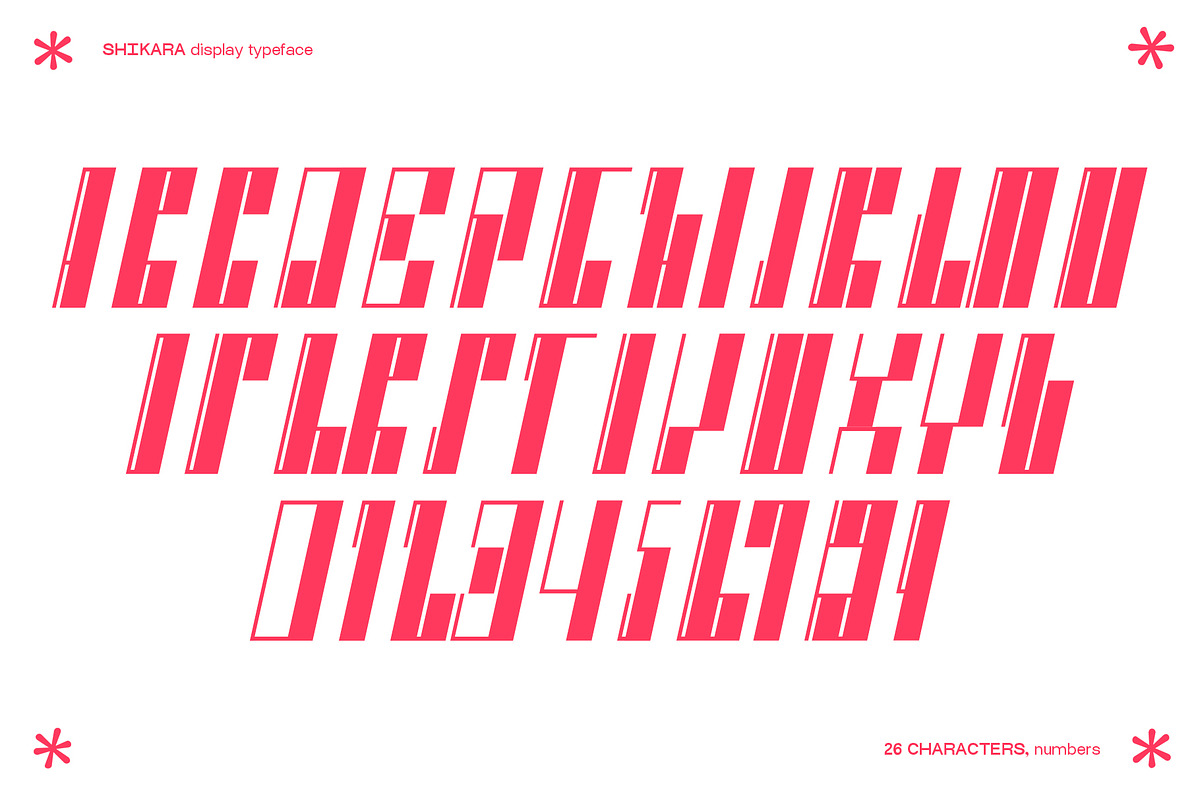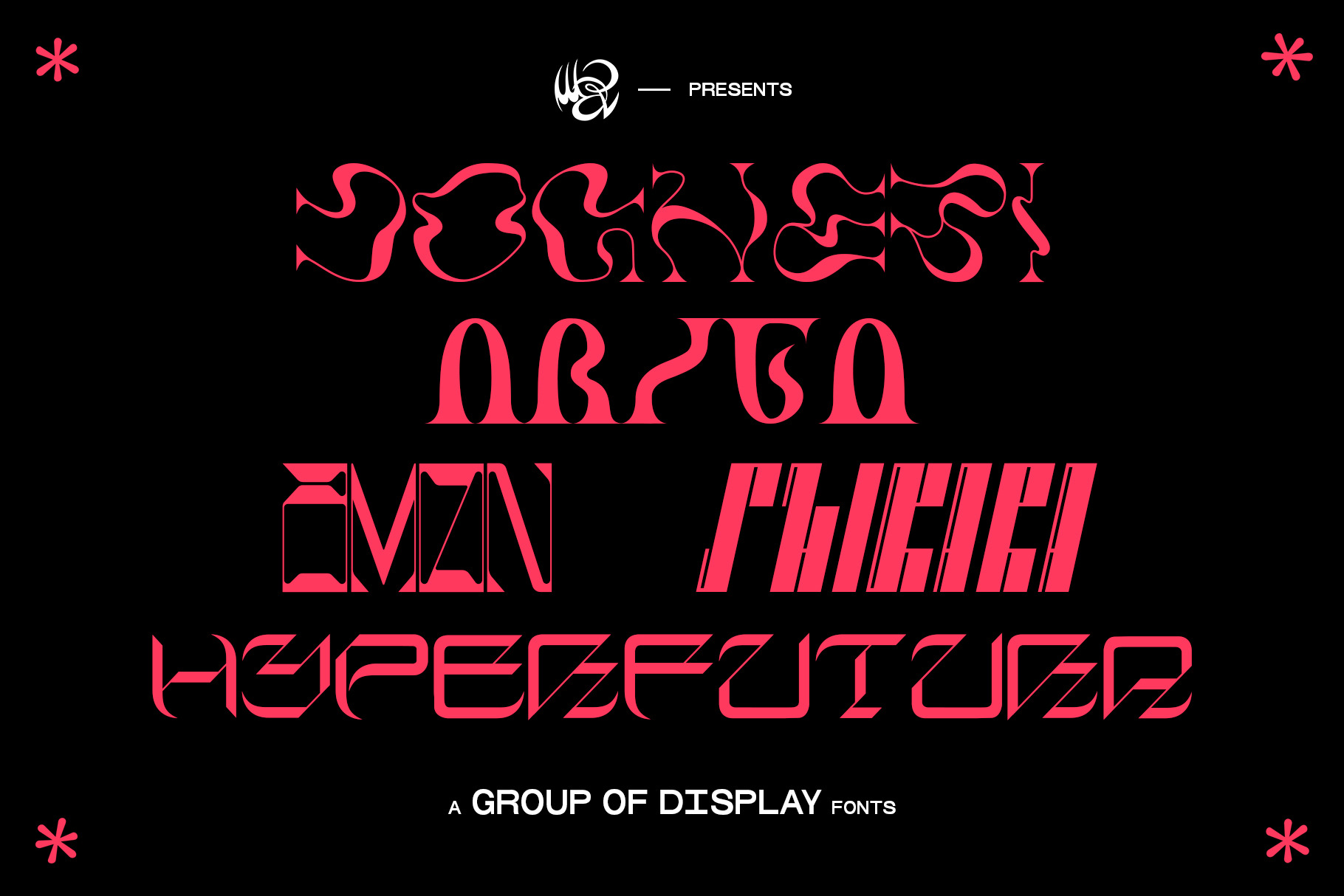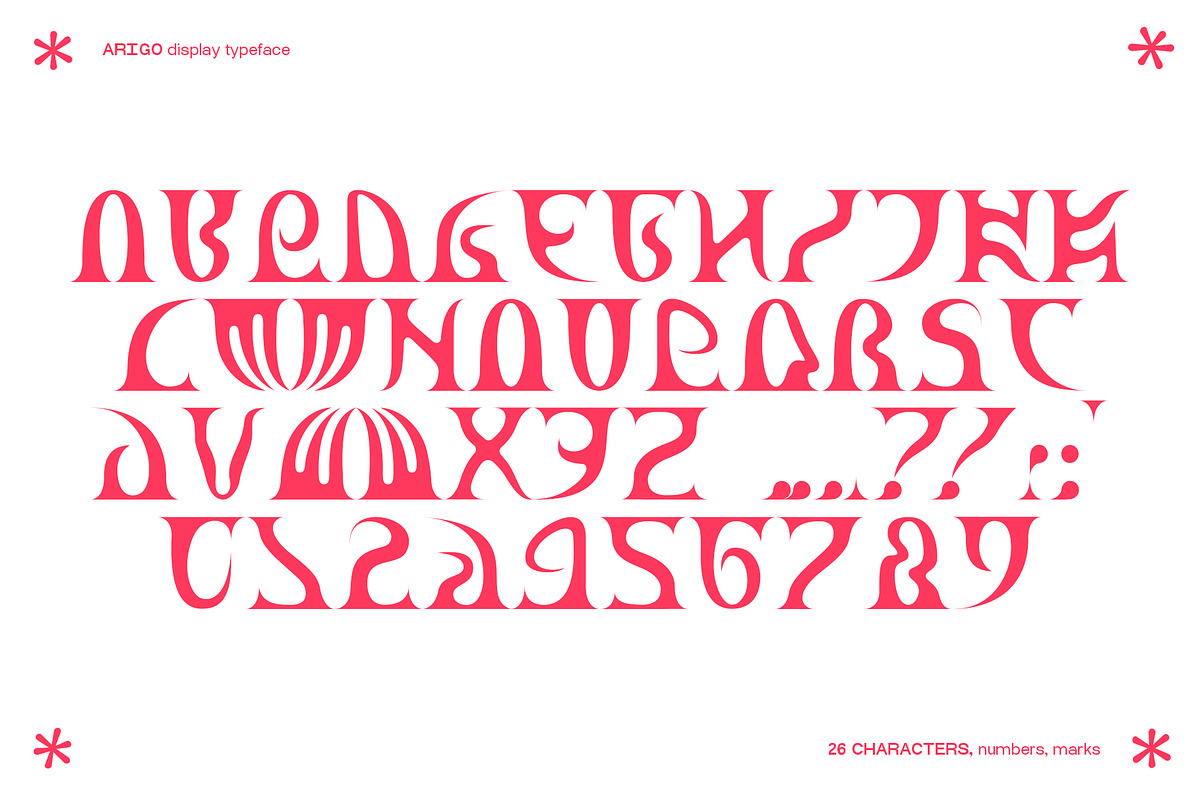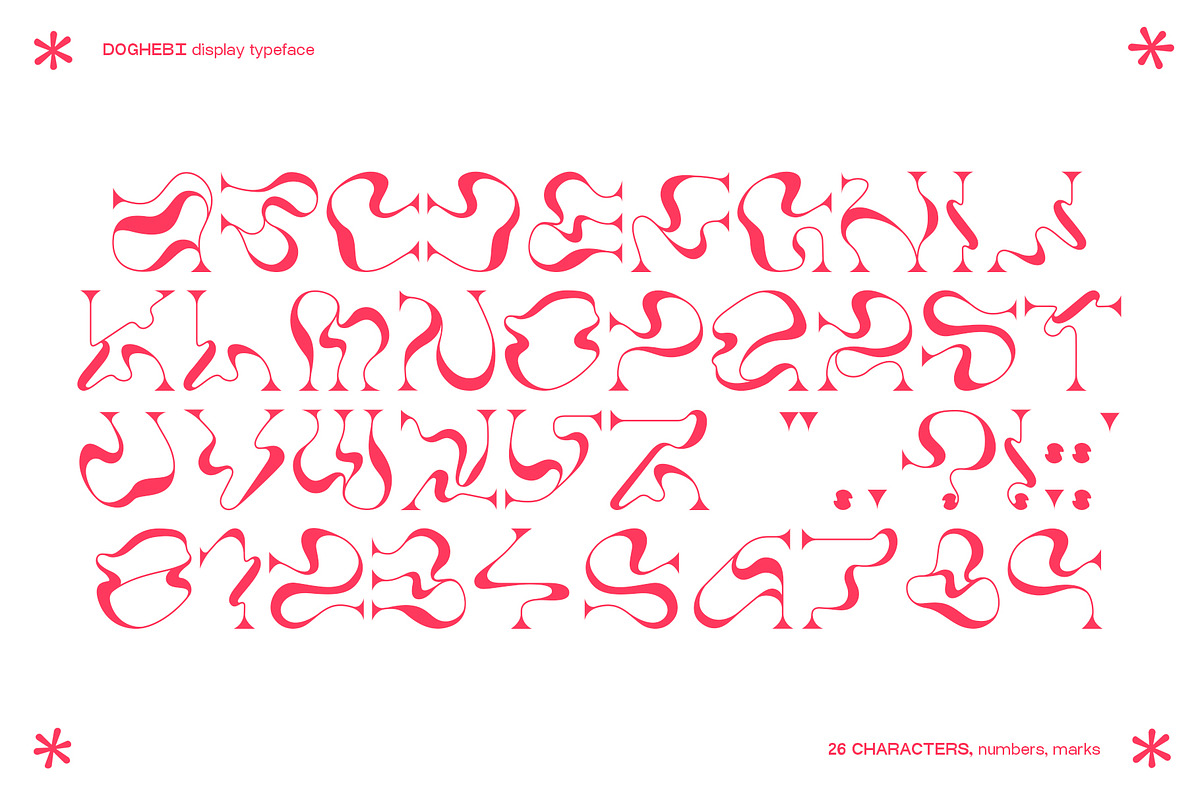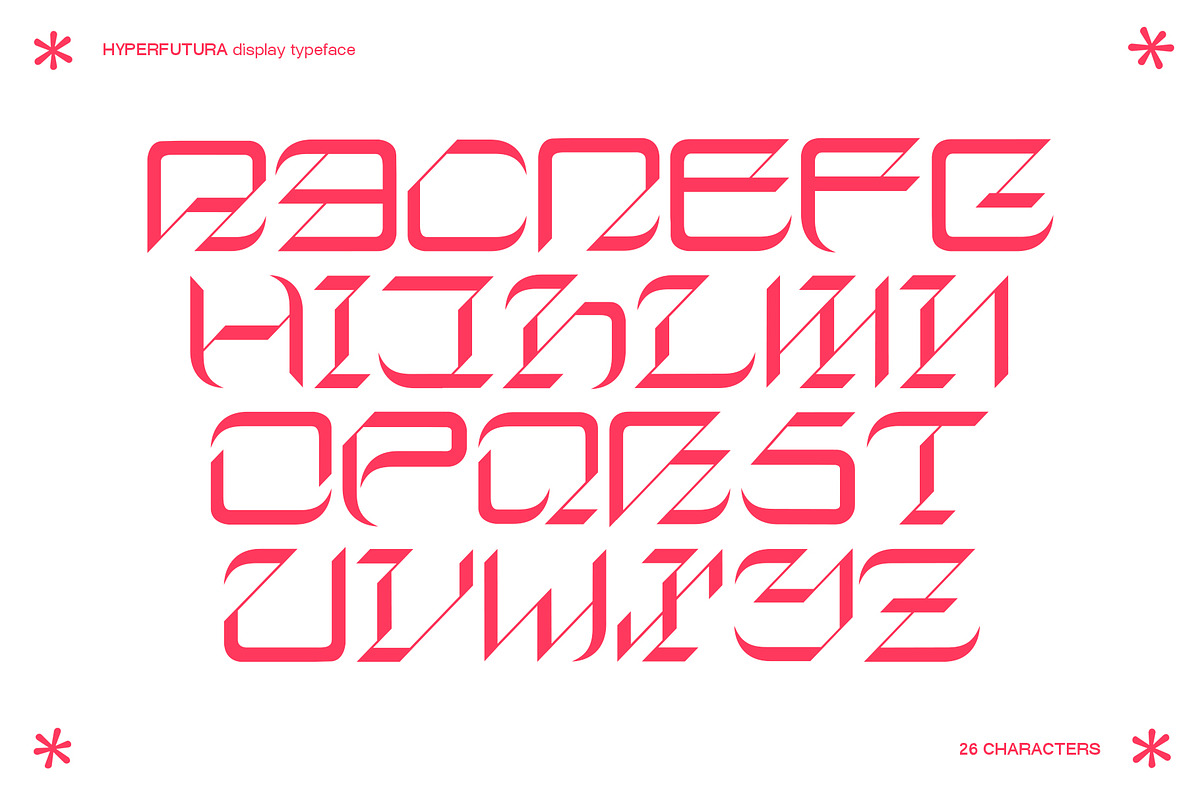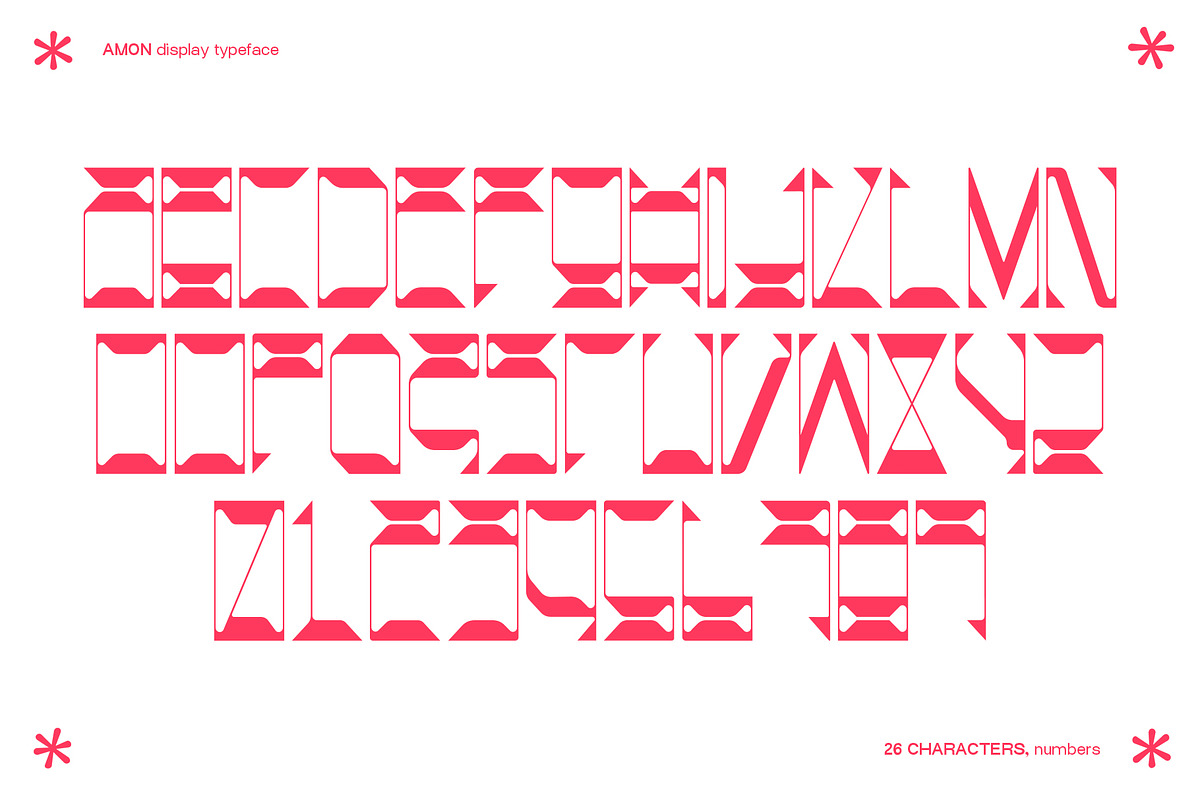
DISPLAY TYPEFACES BUNDLE 1
DOGHEBI is a serif liquid display typeface designed with the intent of bringing the liquify tool to the font world. Full of all 26 characters, numbers and marks, it has also serif characteristics which makes it unique and rare.
ARIGO is probably the strangest typeface of the list, a monospaced display font that will give your designs a cool look, it's hard nowadays to find fonts that nobody ever used or seen before, and this is surely what you're looking for.
AMON is a geometric display font. Perfect to create big titles and headlines, it has both big and this lines, it is monospaced, it might become difficult to read if used in really small pts, but it's the most modern font on the list, if you're looking for something modern than this font is for you!
SHIKARA is an italic display typeface perfect to write cool sport headers, merch, posters, and much more! full of all 26 characters and numbers Shikara is really unique in its shapes and the compositions that you can obtain working with tracking, spacing and more tools.
HYPERFUTURA is a futuristic display font, inspired by the futuristic wave trending right now, it's hard in some lines and really soft on others. This font comes only with the classic 26 letters.